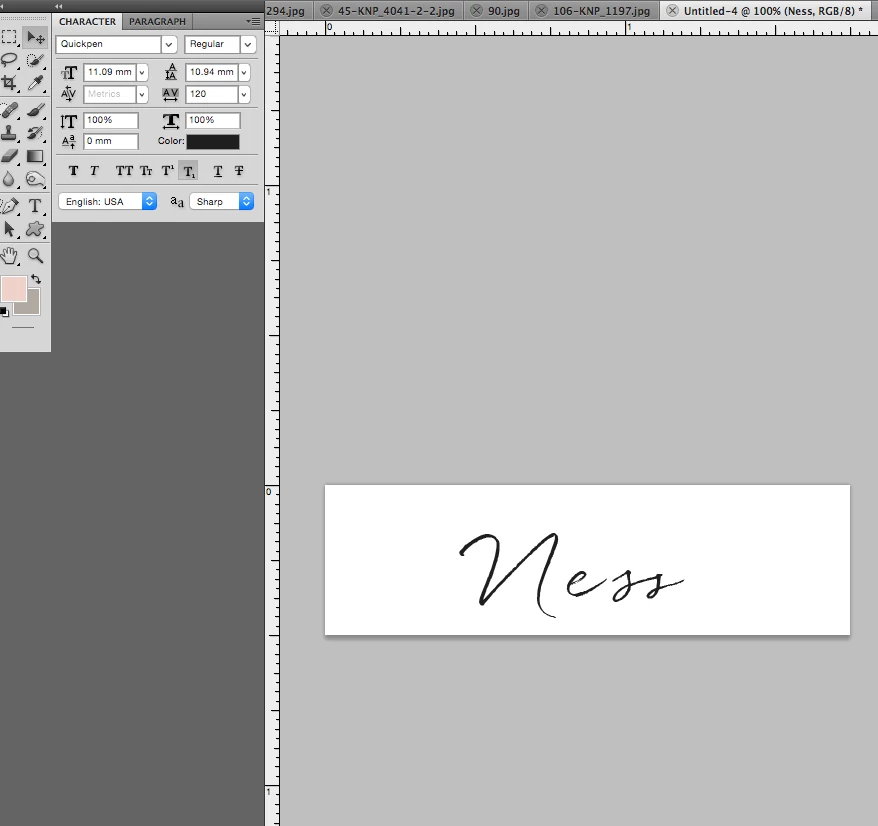
I have CS5 on Mac OS Yosemite.  I purchased Quickpen font and installed into my fontbook.  It displays correctly when i use it in Pages but when I try to use it in PS it looks differently. In the attached example the e disconnects from the ss when in photoshop.    The font company suggested I ask Adobe...
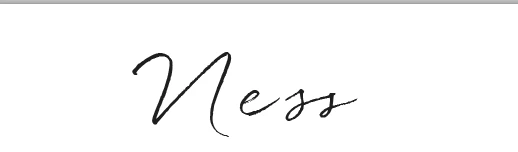
Try setting your tracking to zero:
Have a look at the Character panel, and specifically at the glyph options at the bottom of the panel
If you have not already tried CC, it now has a separate Glyphs panel.  It might be the feature that triggers your move to subscribe, but it is obviously your choice.
Hi Trevor... I don't see that is my character panel view.
Try setting your tracking to zero: